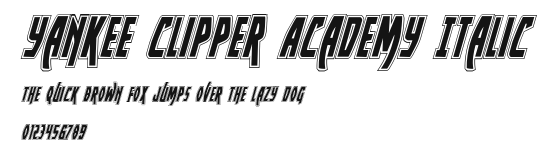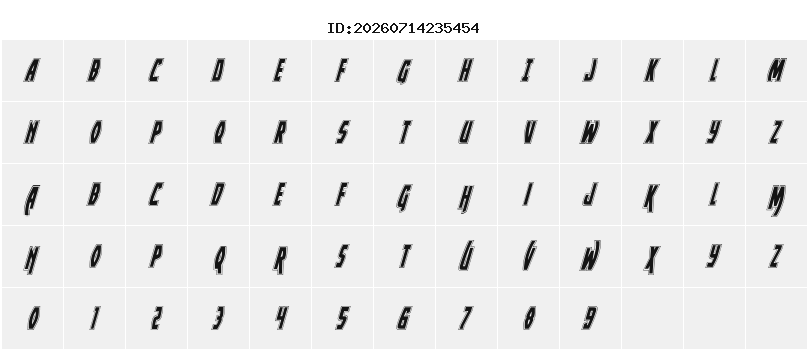
Yankee Clipper Academy Italic Preview
• Font Name: Yankee Clipper Academy Italic
• Font ID: Yankee Clipper Academy Italic: 2011
• Full Font Name: Yankee Clipper Academy Italic
• Version: 001.100
• PostScript Name: YankeeClipperAcademyItalic
• Character Count: 217
About Yankee Clipper Academy Italic.ttf
Yankee Clipper Academy Italic.ttf is a modern, elegant sans-serif font designed for ultimate readability and visual harmony. Perfect for branding, headlines, web design, and print materials.